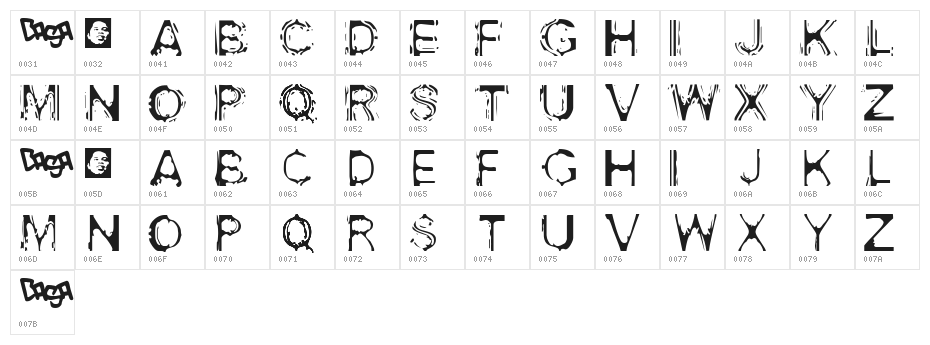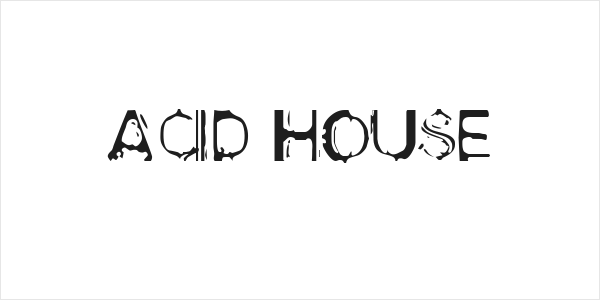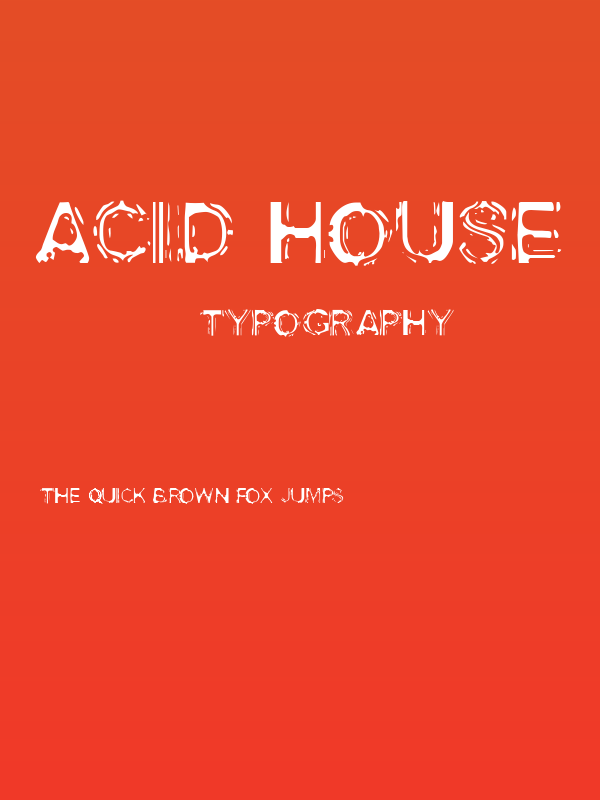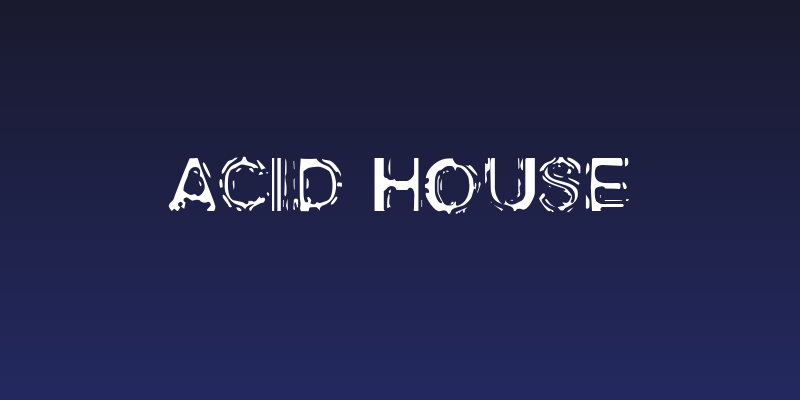
Acid House Font
Acid House Description
This font features a bold, distressed style with a grunge aesthetic. The characters are heavily textured, giving them a worn and chaotic appearance. The uppercase letters are prominent, with irregular edges and a sense of movement. The overall design is dynamic and eye-catching, making it suitable for projects that require a rebellious or edgy vibe. The font's unique style is reminiscent of urban graffiti or underground music scenes, making it ideal for creative and unconventional designs.
| Overall Style | Grunge, Urban, Edgy |
| Proposed Projects | Album covers, event posters, streetwear branding, and edgy graphic design projects. |